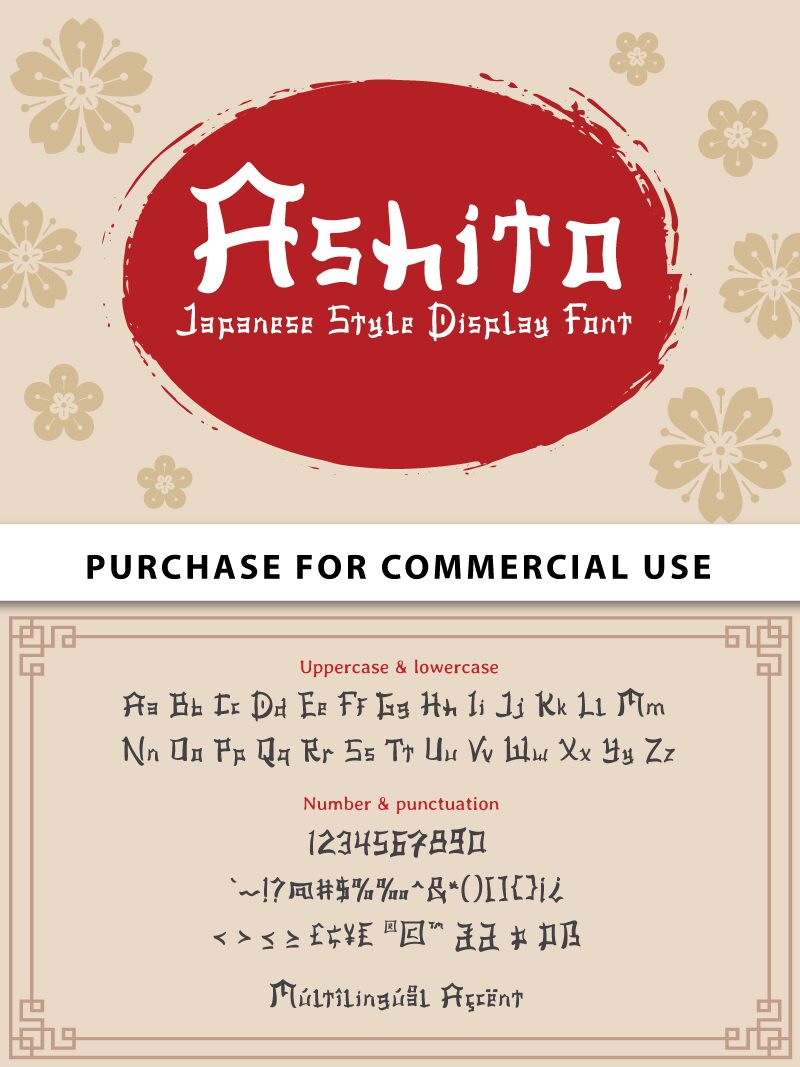
Ashito Regular
Ashito, designed by Attype Studio, is a captivating semi-light foreign font that effortlessly brings the charm of faux Japanese characters to life. Its delicate strokes and elegant curves make it perfect for creating an enchanting atmosphere in your design projects.
With Ashito, you can add a touch of sophistication to wedding invitations, travel brochures, or even restaurant menus. Let this font transport your audience to a world of tranquility and serenity with its graceful demeanor.
Embrace the beauty of Ashito and let your creativity flourish in unexpected ways.